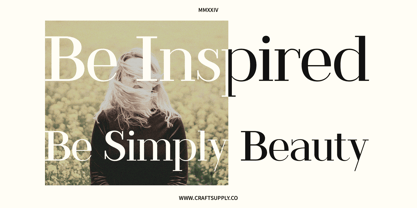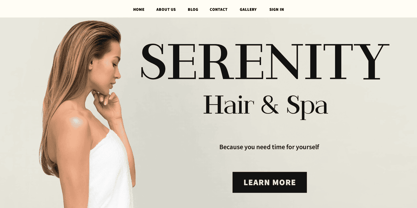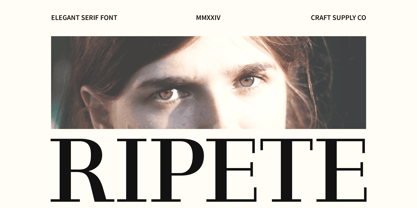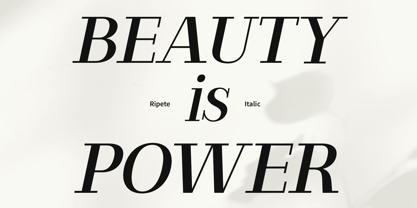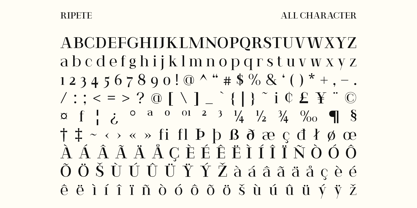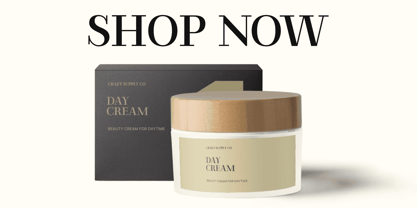
Ripete
by Craft Supply Co
The Ripete Font Family was designed by Trio Nazzar Saputra, Wahyu Hadi Yuana and published by Craft Supply Co. Ripete contains 2 styles and family package options. More about this family
Ripete Font: Redefining Modern Elegance in Serif Typography High-Contrast Sophistication Ripete epitomizes high-contrast serif typography, exuding an air of sophistication and refinement. Its sleek lines and sharp contrasts lend a modern touch to any project. Contemporary Elegance With its modern aesthetic, This font redefines elegance for the digital age. Each character is meticulously crafted to convey a sense of refinement and grace, perfect for contemporary designs. Versatile and Dynamic Designed for versatility, This font adapts effortlessly to various design contexts. Whether used for editorial layouts, branding materials, or digital interfaces, its modern elegance shines through, making a bold statement. Captivating Modernity This font allure lies in its ability to captivate and engage audiences with its modern elegance. Its high contrast and sleek design make it a compelling choice for projects that demand attention and sophistication. Modernity Meets Elegance This font emerges as a beacon of modern elegance in the realm of serif typography. With its high contrast, sleek lines, and contemporary vibe, it offers designers a versatile tool to infuse projects with sophistication and style. Experience the allure of Ripete and elevate your designs with its modern elegance.
Designers: Trio Nazzar Saputra, Wahyu Hadi Yuana
Foundry: Craft Supply Co